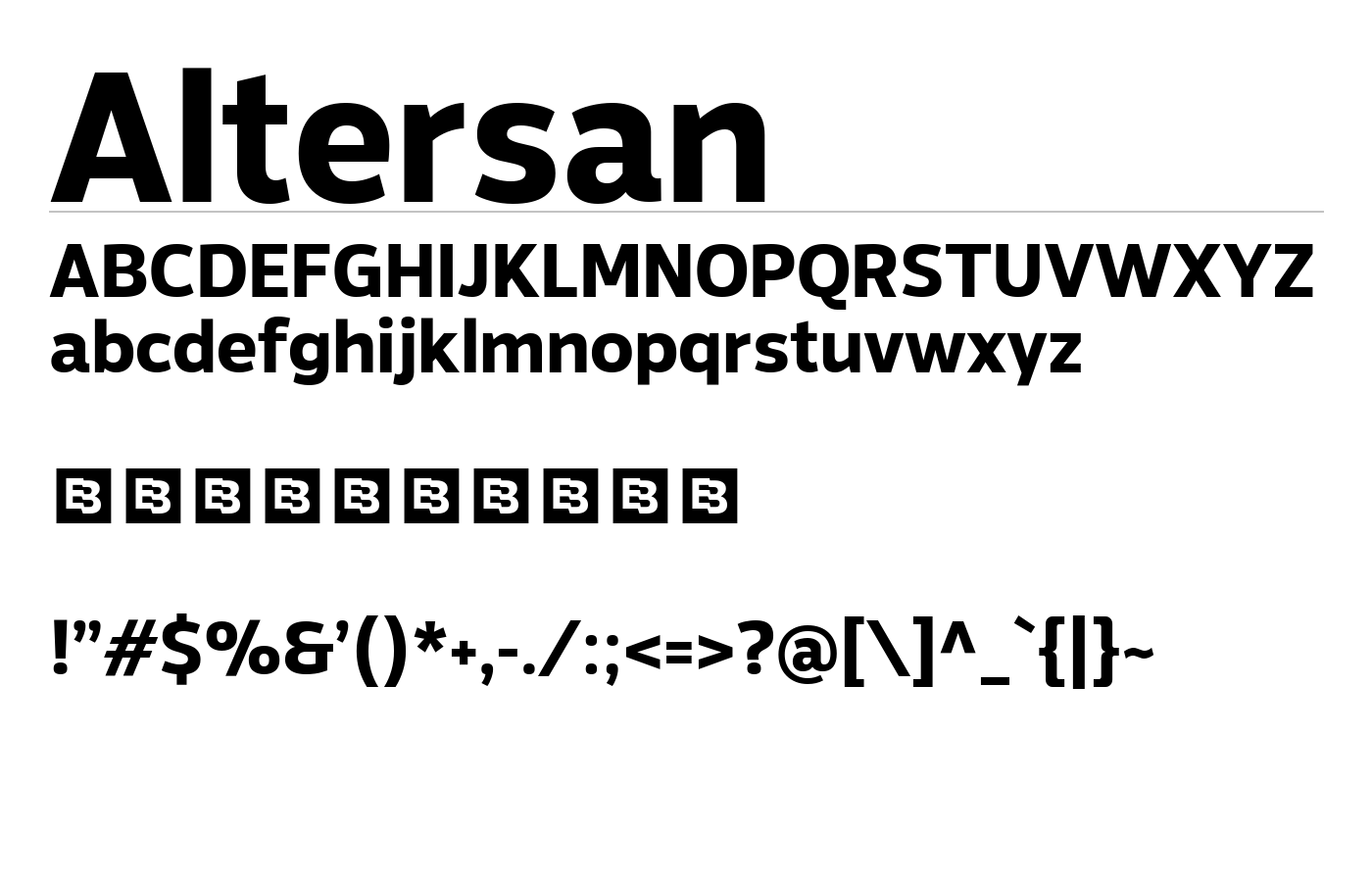
Altersan is a bold, sans serif typeface with a modern and sturdy feel, featuring clean, geometric shapes and a slightly condensed width that gives it a strong presence. Its high x-height and uniform stroke weight make it highly legible and impactful, ideal for headlines, logos, and branding that demand clarity and confidence. This font suits contemporary designs where a bold, straightforward, and professional look is essential.
Altersan Font
About Altersan Font
| Font family | Altersan Font |
| Designer | Eko Bimantara |